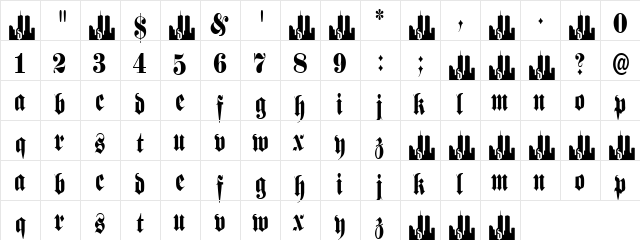
Memorial Day 911 Regular
Design Context for Memorial Day 911 Typeface
Memorial Day 911 is a composed and adaptable typeface that performs quietly and consistently across a wide range of design contexts.
Pro Tip: Use Memorial Day 911 in both headline and body roles to test its range before committing to a single application.